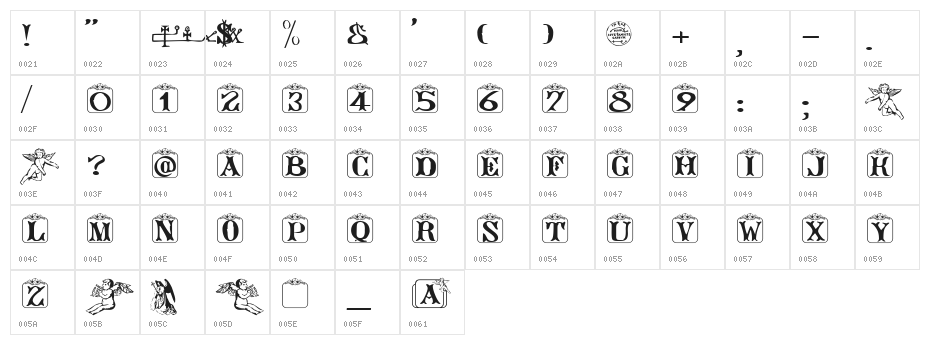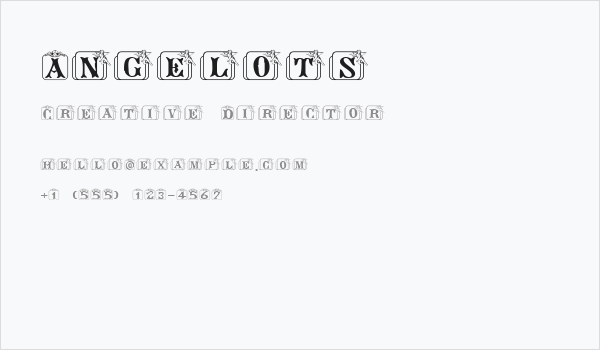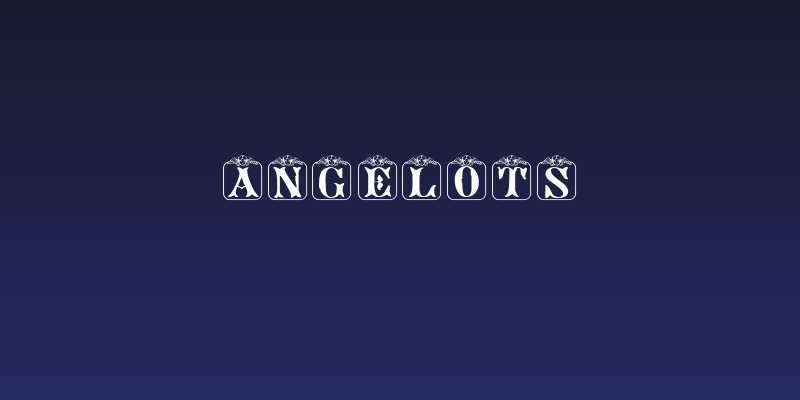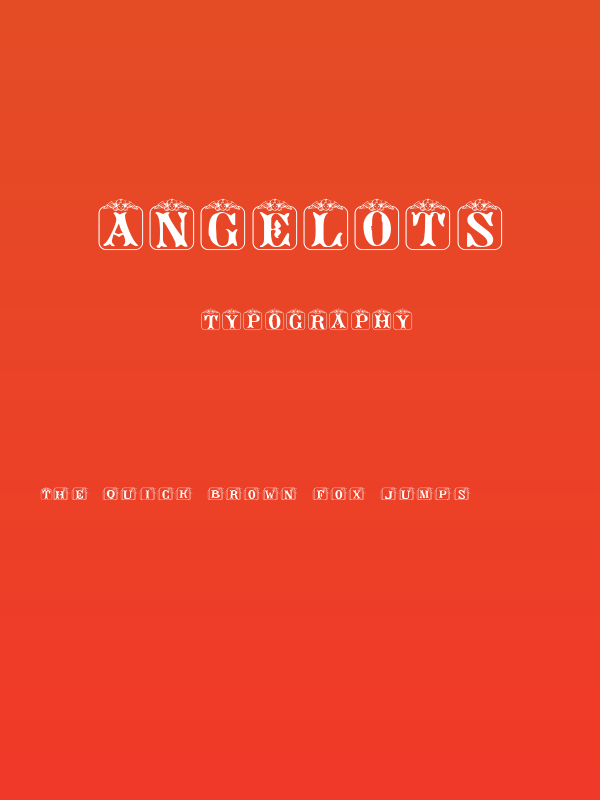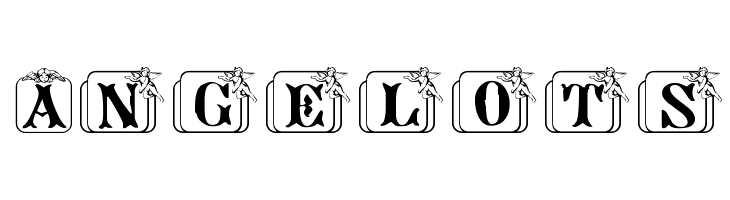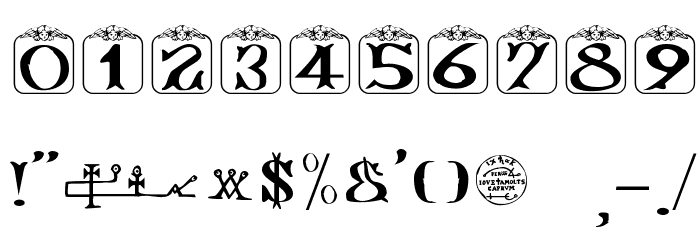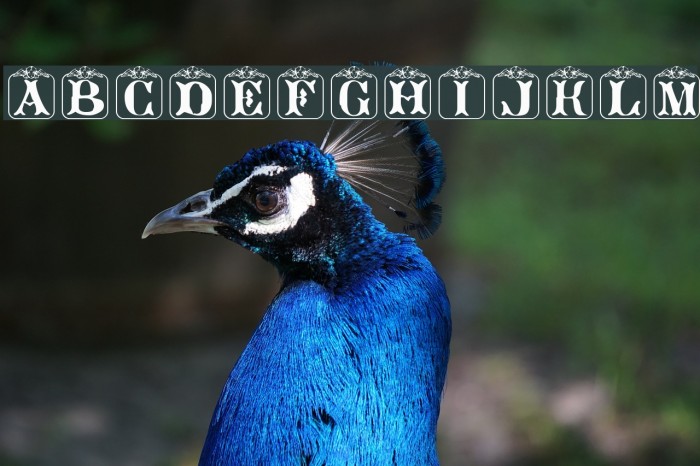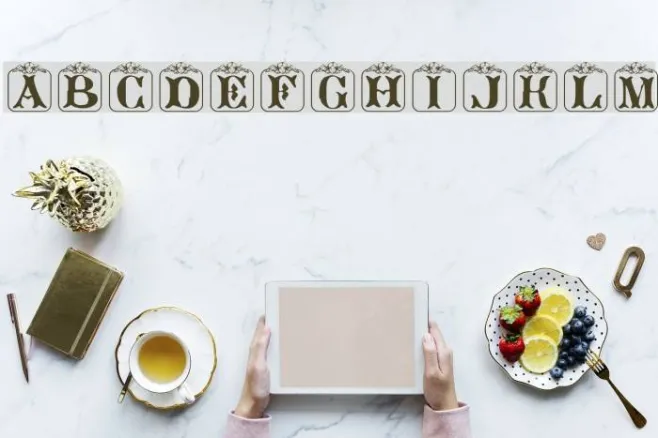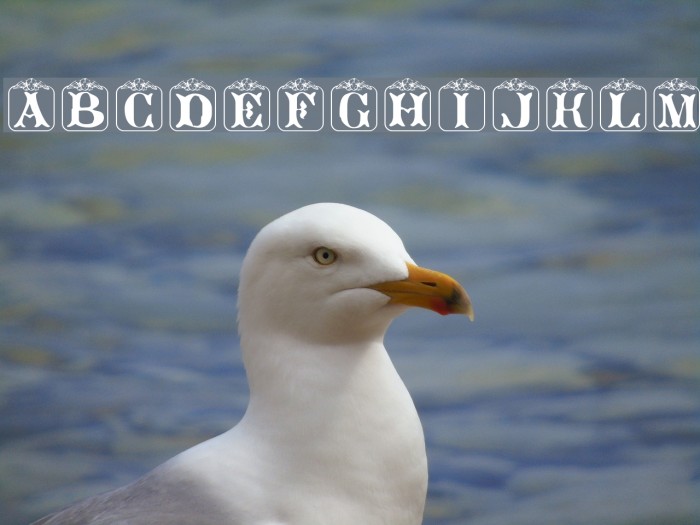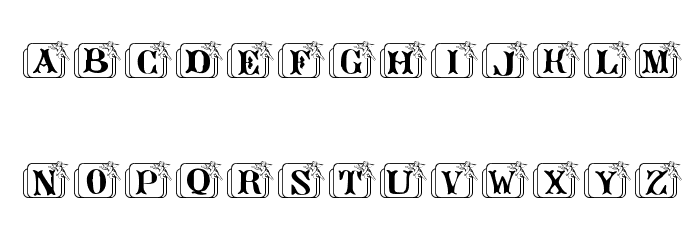
Angelots Font
Angelots Description
This font features an ornate and decorative style, with each character enclosed in a square frame adorned with intricate angelic motifs at the top. The letters are bold and have a classic serif design, giving them a vintage and elegant appearance. The numbers follow the same stylistic approach, maintaining consistency across the character set. Special characters are uniquely designed, adding to the overall decorative theme. The font's intricate details make it suitable for projects that require a touch of sophistication and historical charm.
| Overall Style | Vintage, Decorative |
| Use Case | Headlines, Logos, Decorative text |
| Proposed Projects | Ideal for wedding invitations, vintage-themed posters, book covers, and branding that requires a classic and sophisticated look. |